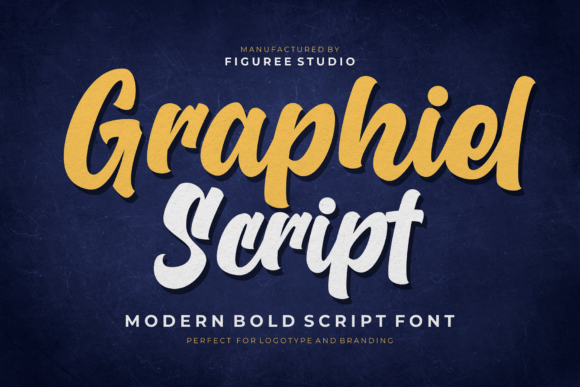
Immerse yourself in the world of Graphiel Script, a captivating script font that embodies the essence of contemporary elegance. With its bold strokes and fluid curves, this font exudes confidence and sophistication, adding a touch of allure to your creative endeavors.
Graphiel Script is the perfect companion for the modern artist, yearning to craft eye-catching headlines, logos, and branding materials that leave a lasting impact. Its sleek and stylish letterforms dance across the canvas, creating a sense of dynamism and energy that commands attention.
Unleash the versatility of Graphiel Script and let your words take center stage. Whether you're crafting formal invitations or trendy social media graphics, this font effortlessly adapts to your vision, allowing you to convey your message with flair and panache.
Indulge in the artistry of Graphiel Script and elevate your designs to new heights. Its impeccable balance between modernity and classic script charm ensures that your typography will make a bold statement while maintaining a sense of timeless refinement.
Don't settle for ordinary fonts; embrace the captivating power of Graphiel Script. Let your creativity soar and embark on a typographic journey that will leave your audience spellbound.